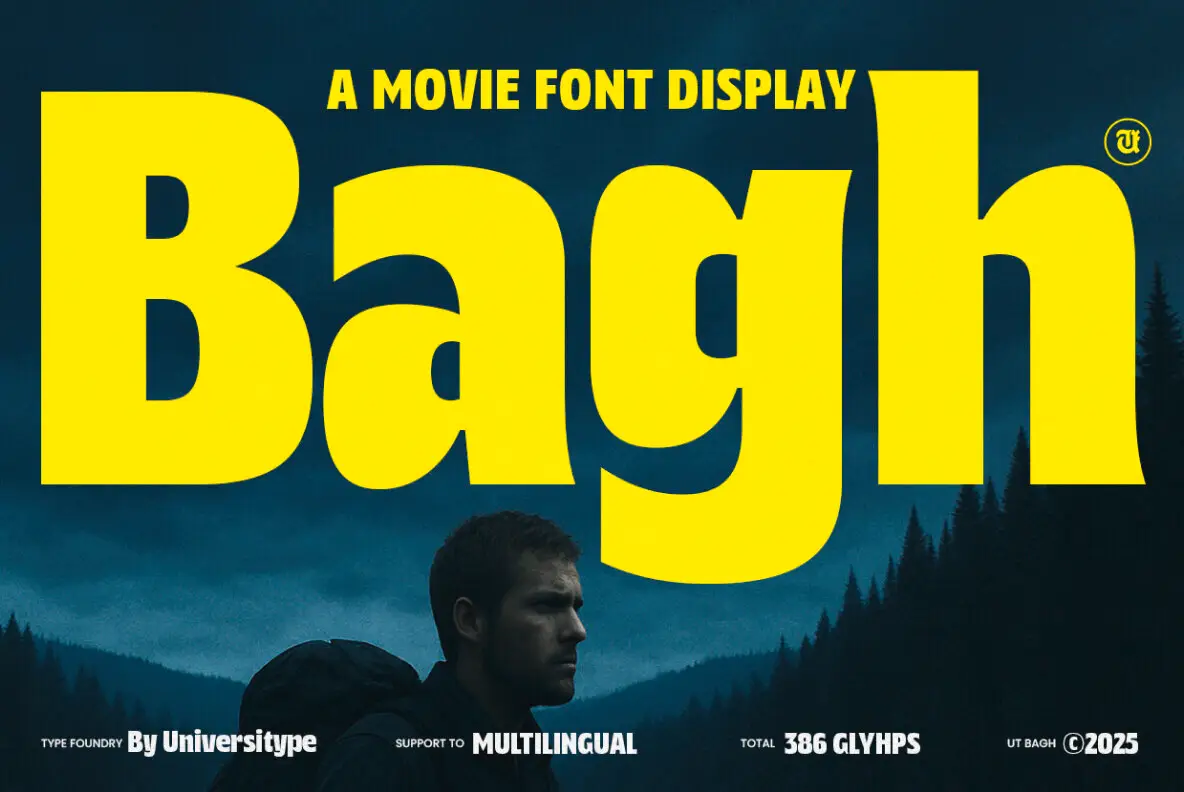
UT Bagh Display is a modern, neo-grotesk sans-serif designed for the big screen. With its clean, confident style, it captivates audiences whether on a towering movie billboard or scrolling end credits. Notable for its wide apertures and generous counters, UT Bagh offers a steady rhythm, ensuring clarity and character for any project. Think of it as your typographic IMAX lens—bold, versatile, and always in focus. Ideal for filmmakers, brand designers, digital creators, and studios, this typeface delivers a cinematic look that excels across languages and platforms. It suits anyone seeking a type family that feels modern, professional, and internationally versatile. UT Bagh was inspired by the cinematic world, nodding to 1950s Swiss poster typography while being updated for the digital age. Its design elements—subtle flicks in tails, flat apexes, and cinematic proportions—evoke the essence of motion, light, and storytelling. This typeface doesn't just communicate; it performs.UT Bagh Display: Neo-Grotesk Sans-Serif
Perfect for Global Creatives
Cinematic Design Inspiration